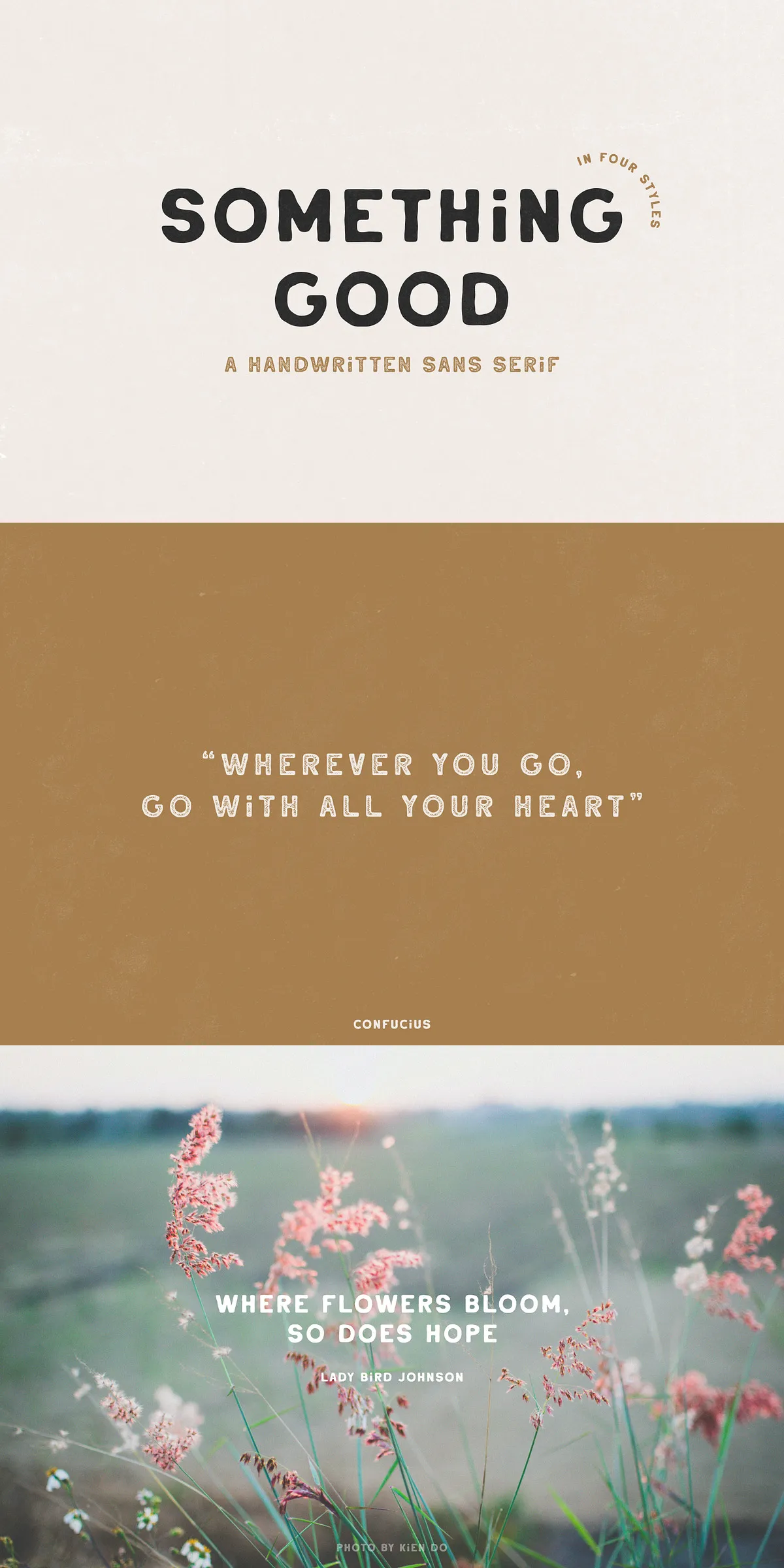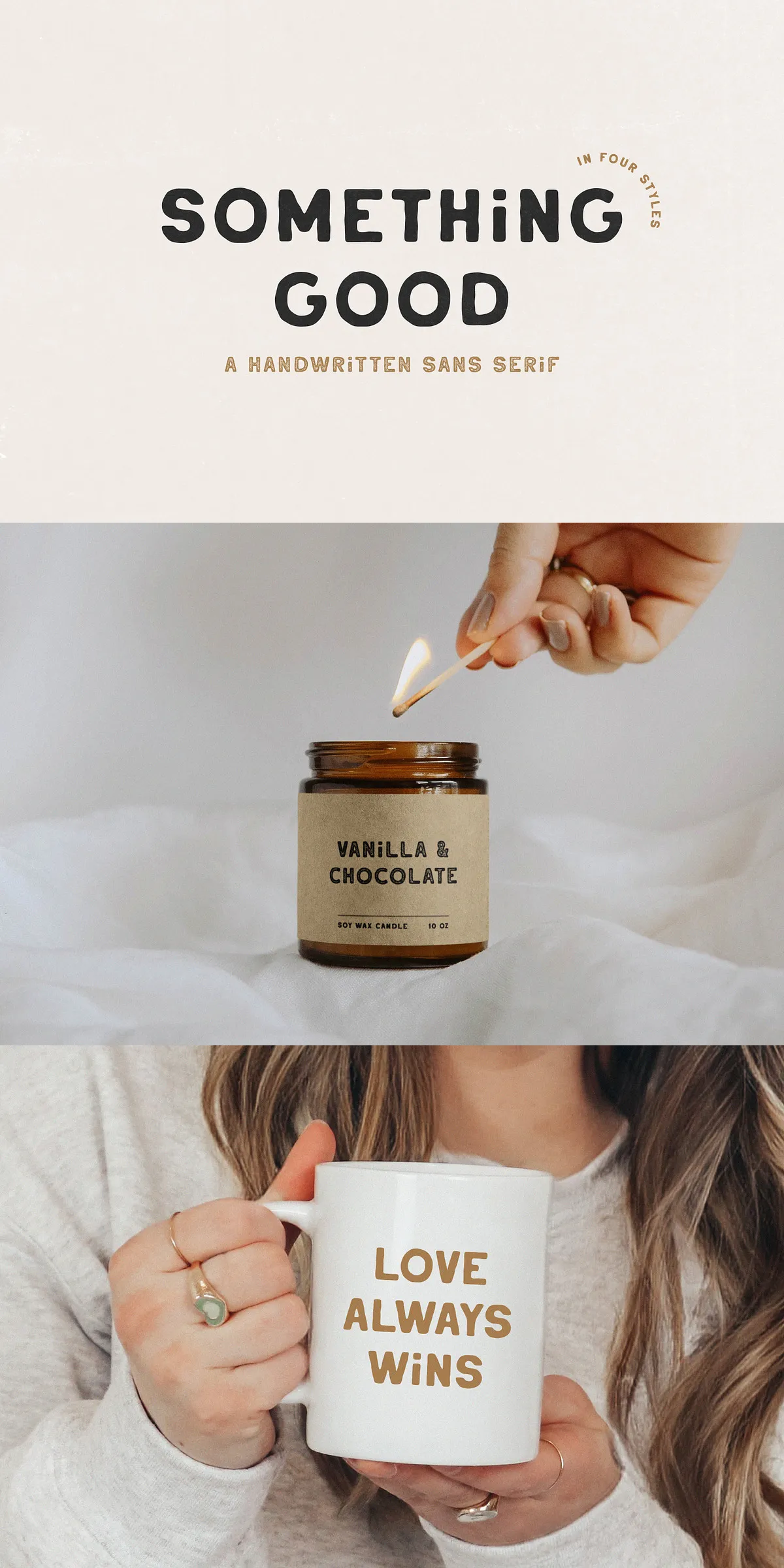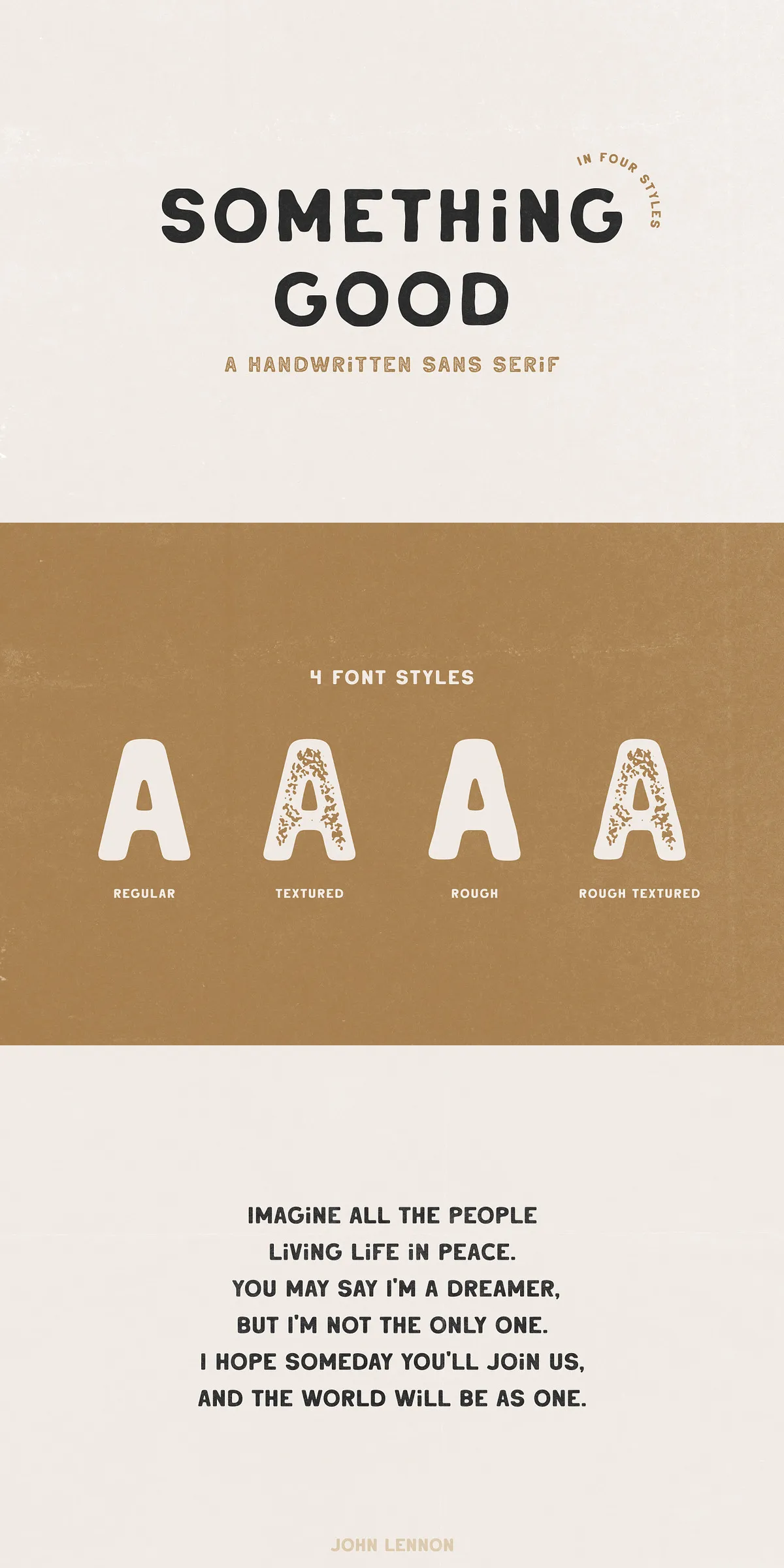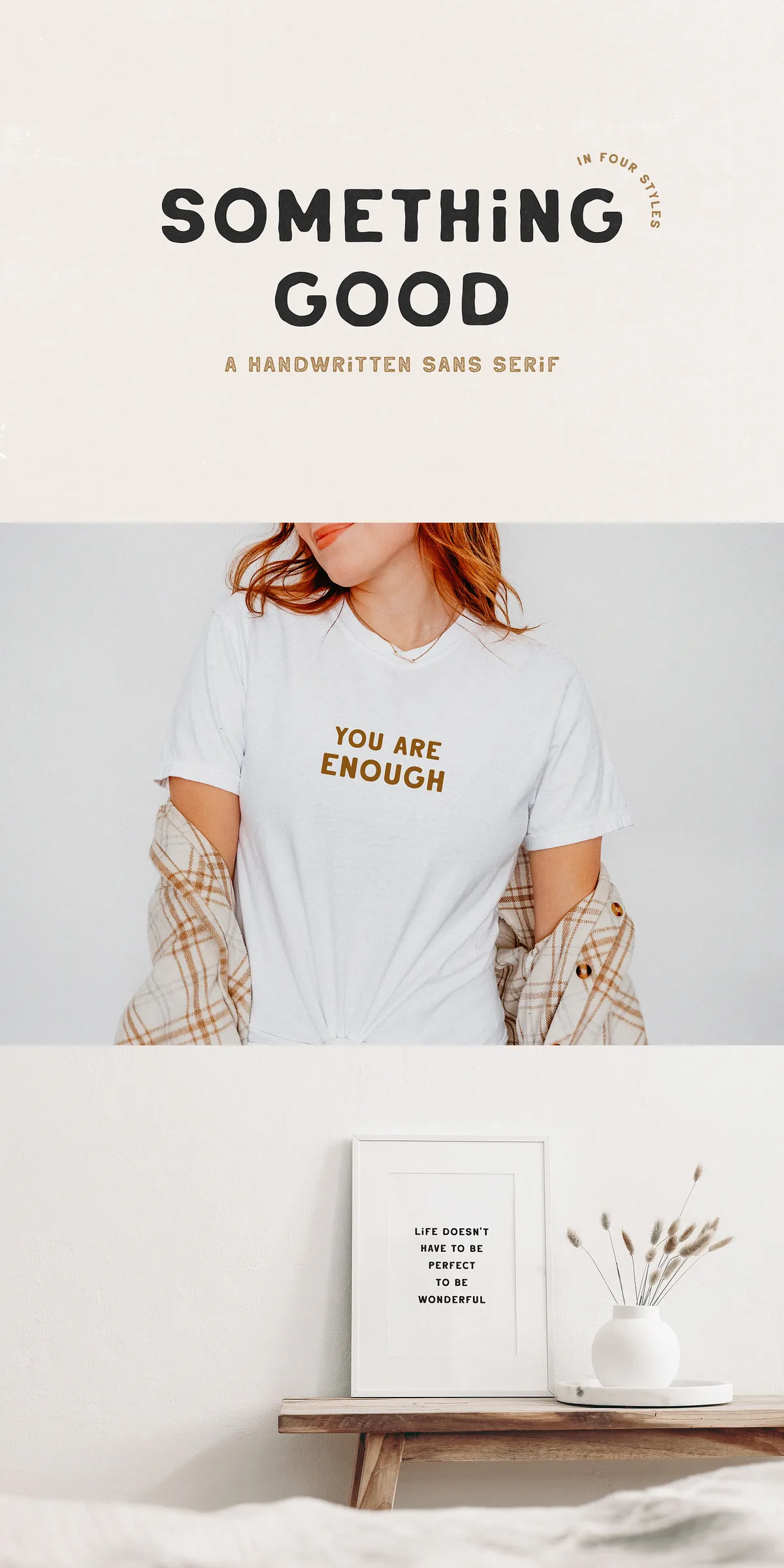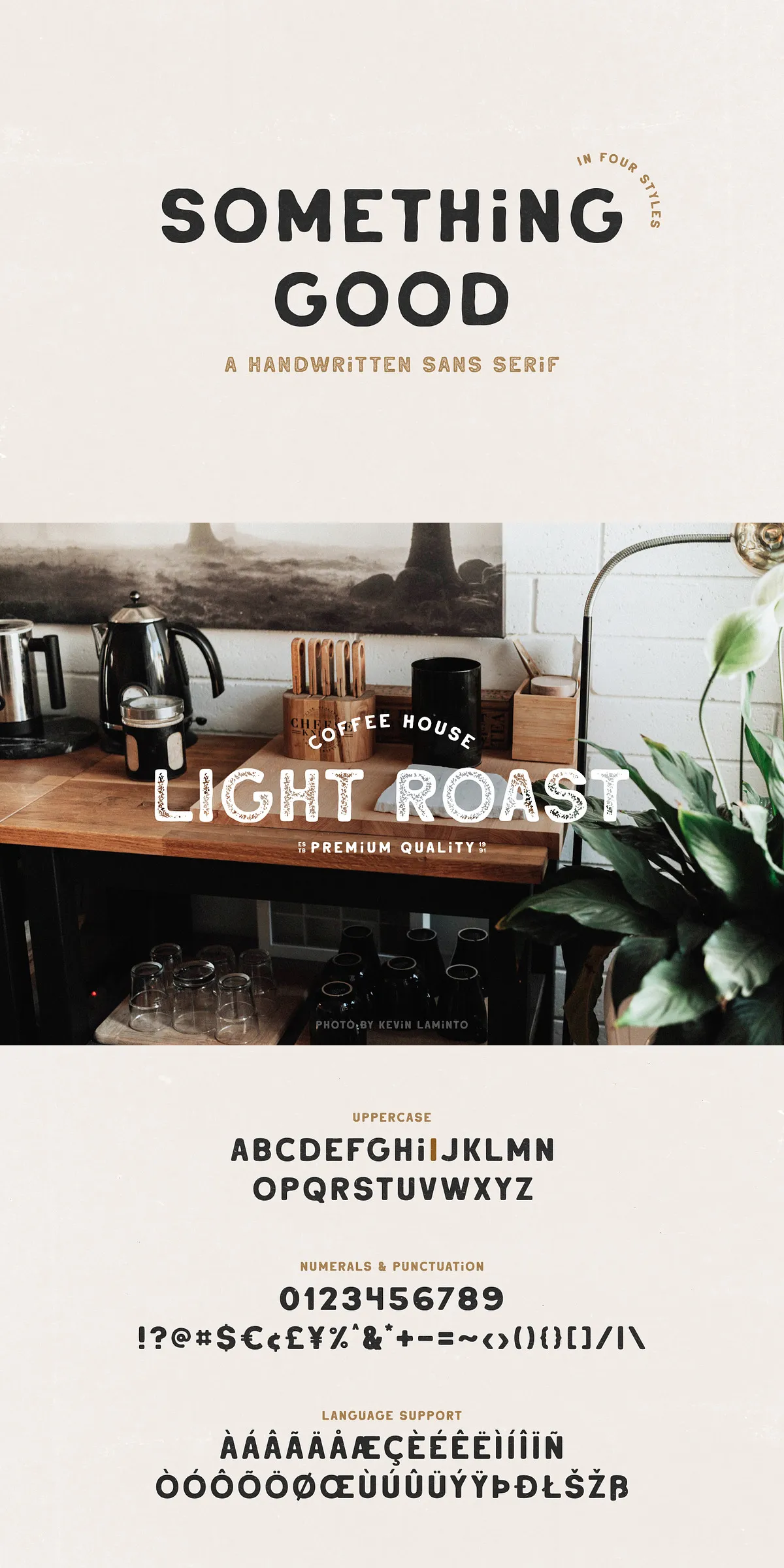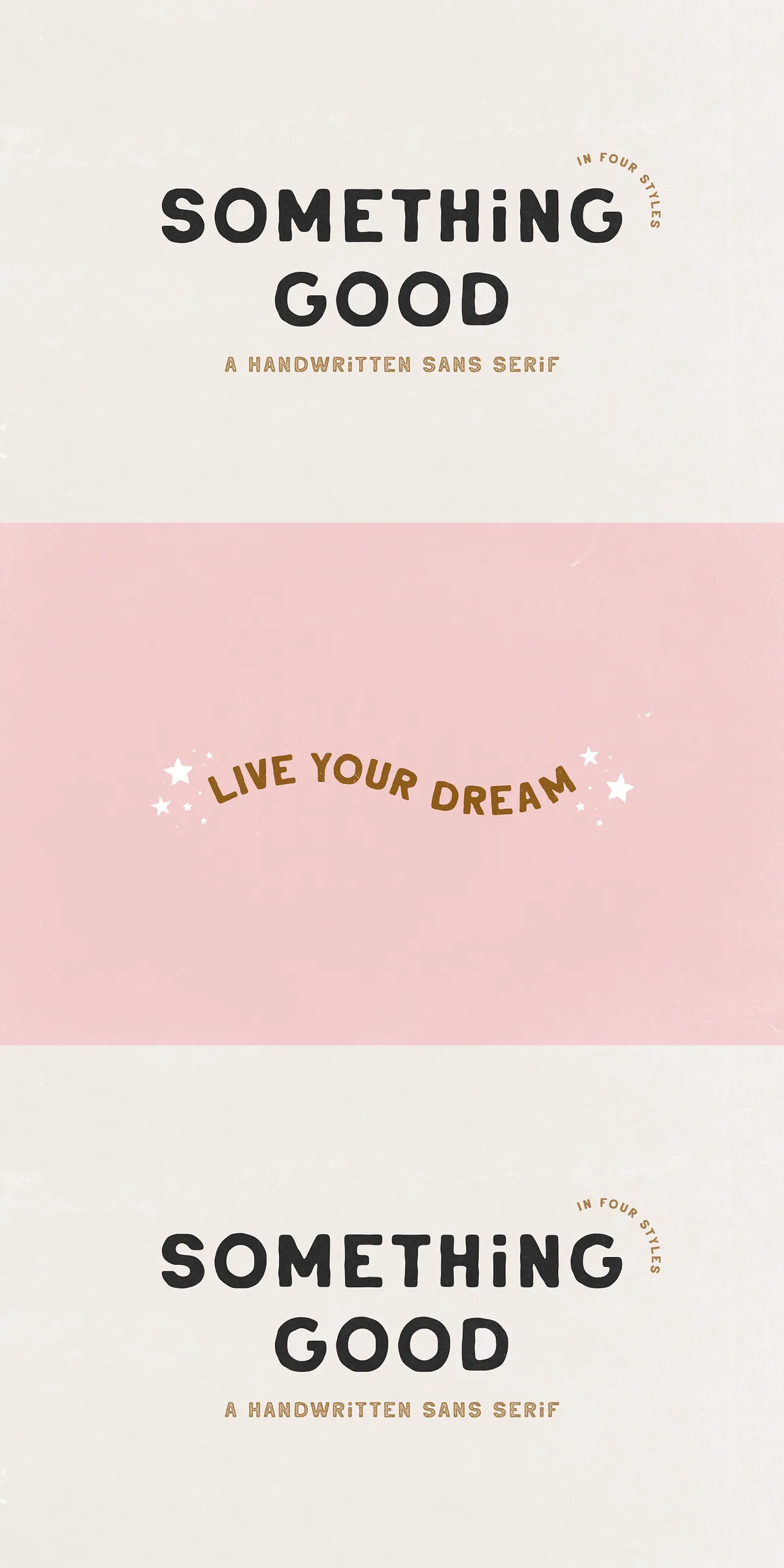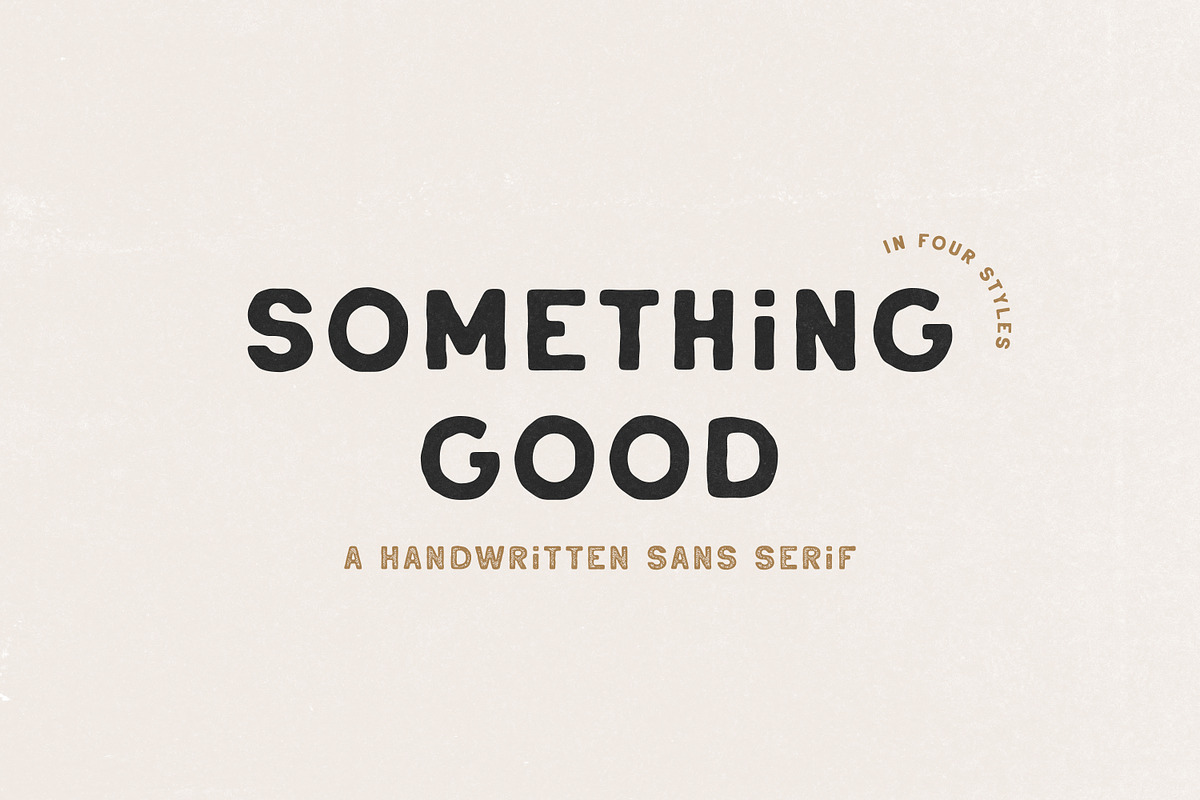
Something Good is a dynamic and creative handwritten uppercase sans serif font that delivers versatility and stylish appeal across a spectrum of design projects. Available in four distinct styles—regular, textured, rough, and rough textured—this font family empowers designers to craft impactful visual identities with a handcrafted touch that resonates with modern audiences. Whether you’re working on logos, branding, packaging, apparel, or social media content, Something Good ensures your design communicates originality and energy.
Comprehensive Font Family with Four Unique Styles
Designed with flexibility in mind, Something Good comes with four complementary styles that enhance your creative options. The primary style offers clear, bold uppercase letters that maintain easy legibility and modern flair. The textured and rough versions infuse organic imperfections and tactile character, adding depth and dimension to your designs. These variations are ideal for packaging, posters, stickers, and apparel where a natural, handcrafted feel elevates the overall aesthetic. The combination of styles makes Something Good a powerful choice for coherent branding across various media.
Optimized for Diverse Creative Applications
This font excels in numerous design contexts, offering strong visual impact wherever applied. Logos and branding projects benefit from its distinctive uppercase letterforms, helping brands establish a confident and memorable identity. Packaging designs gain an artisanal edge with the textured and rough styles, evoking authenticity and craftsmanship. Apparel designs become immediately eye-catching, suited for both streetwear and boutique fashion labels. The font also shines in social media posts, quotes, cards, and promotional materials, allowing you to convey messages with personality and clarity.
Engage Your Audience with Handcrafted Authenticity
Something Good stands out by delivering a natural, handcrafted look that actively engages viewers. The font’s uppercase sans serif style pairs simplicity and modernity with a raw textured aesthetic that appeals to contemporary design trends. This balance ensures your designs communicate professionalism while feeling approachable and genuine. The organic imperfections introduced in rough styles contribute to a lived-in, authentic vibe, perfect for brands seeking connection and trust.
Perfect Readability and Boldness Combined
Despite its handcrafted vibe, Something Good does not compromise readability. Its uppercase letters maintain clean lines and balanced proportions, ensuring that your message remains clear across different sizes and formats. This font is designed to catch the eye while providing smooth visual flow, whether on a product label, a poster, or a digital display. It confidently carries strong headlines and logo marks without getting lost in translation.
Summary of Something Good Font Advantages
- Handwritten uppercase sans serif font with four distinct styles
- Flexible and versatile for logos, branding, packaging, apparel, and social media
- Bold, legible letterforms supporting strong brand identities
- Textured and rough styles add authenticity and handcrafted feel
In summary, Something Good offers a robust and versatile typeface solution for designers targeting impactful handwriting styling with uppercase simplicity. It combines professional clarity and organic textural effects to satisfy diverse creative needs. Choose Something Good to inject personality, authenticity, and bold visual presence into your next project.